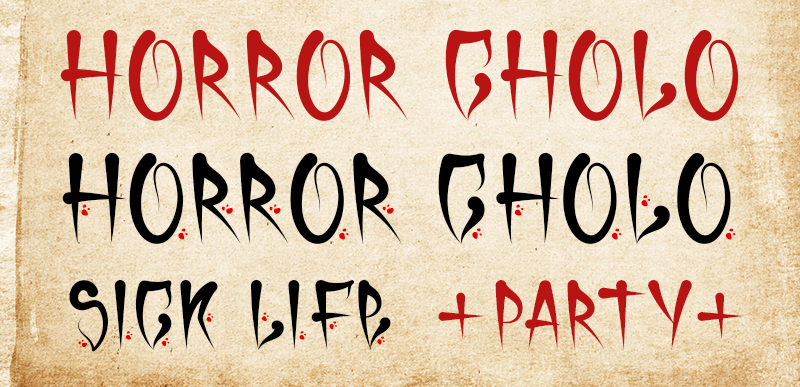
Font name: | Horror Cholo |
Author: | Biroakakarati |
Note by Biroakakarati | |
This handwritten font is inspired by the cholo calligraphy of graffiti artists. It has a scary design, which is suitable for horor film posters and at the same time for signs and tattoo designs. It has an original style an effect font also available in a color version with drops of blood or paint to give a more lively touch. Try using it for your halloween party invitations or for your tattoo designs, for scary greeting cards. |